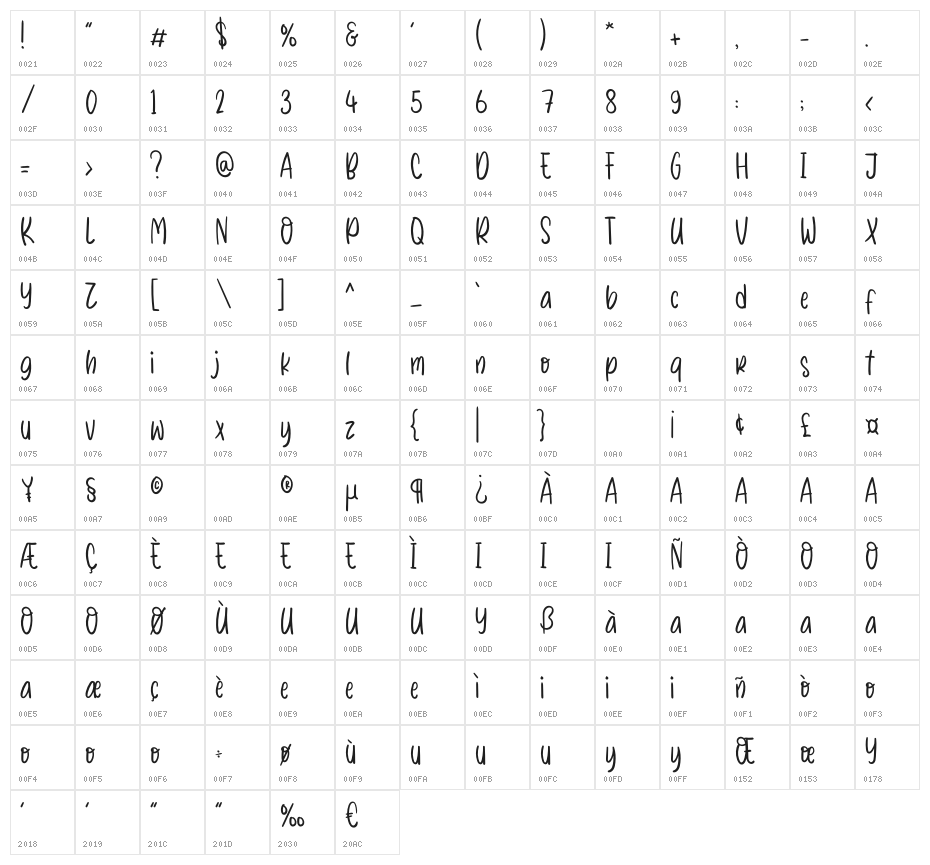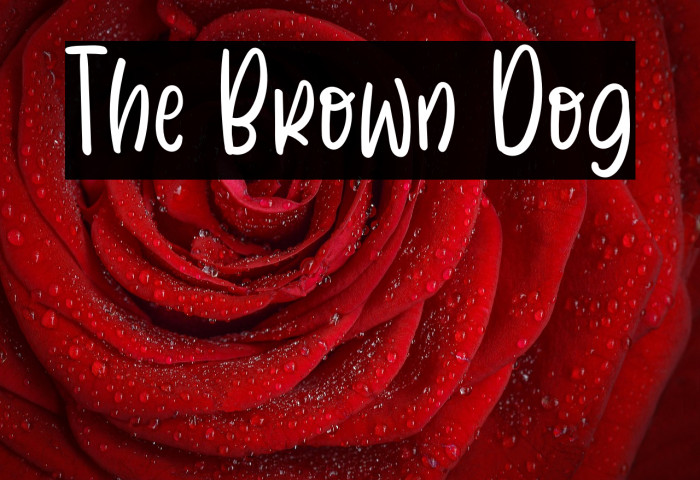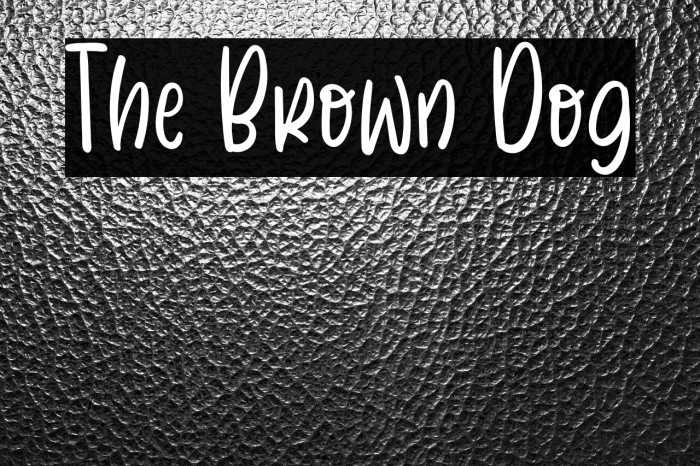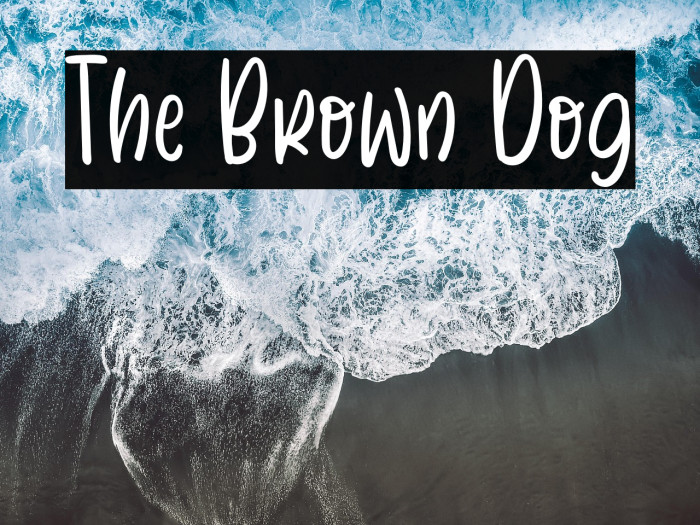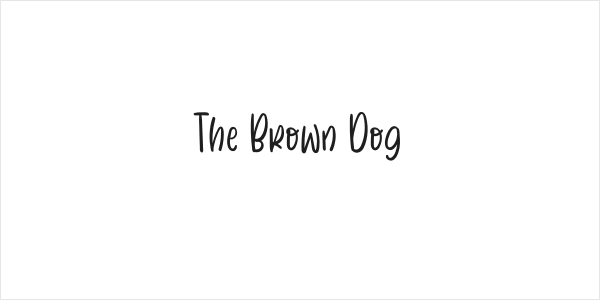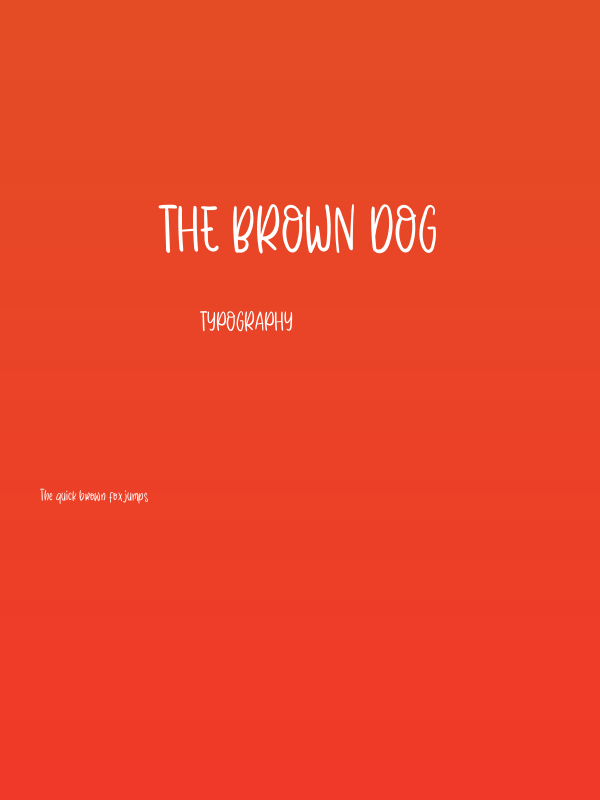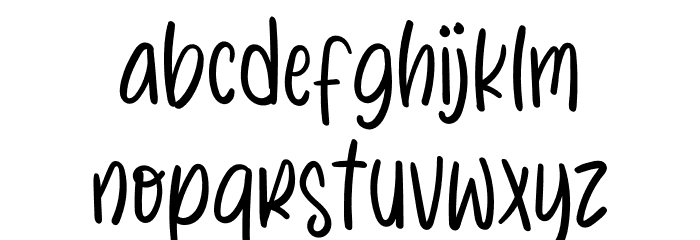
The Brown Dog Font
The Brown Dog Description
This playful and whimsical font features a handwritten style with a casual, friendly appearance. The letters are slightly slanted, giving a dynamic and lively feel. The strokes are smooth and consistent, with rounded edges that enhance its approachable look. The uppercase and lowercase letters maintain a uniform height, contributing to a cohesive design. The numbers and special characters are crafted with the same playful touch, making them blend seamlessly with the alphabet. This font is perfect for projects that require a personal, informal touch.